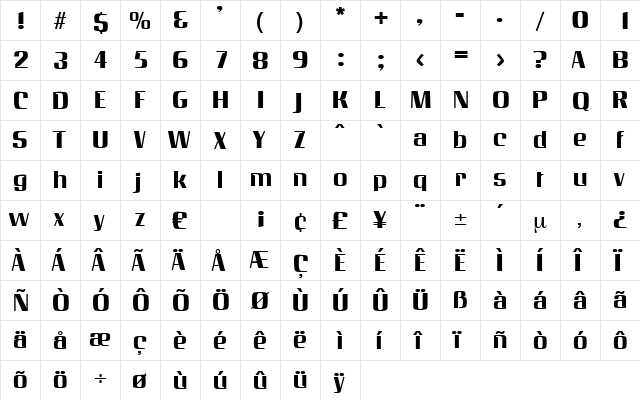
Steamer Regular Font Preview
Steamer Regular
Design Context for Steamer Typeface
Steamer offers clean, dependable letterforms without strong stylistic allegiance, making it a practical choice for designers who need flexibility.